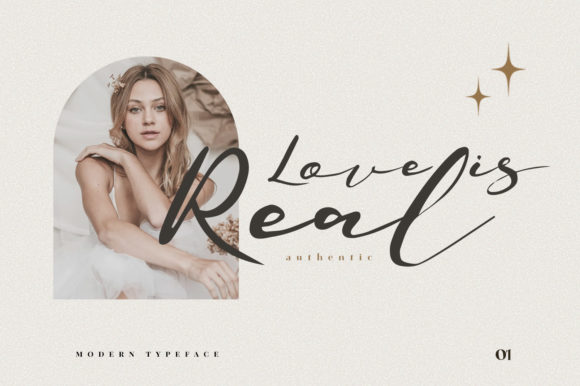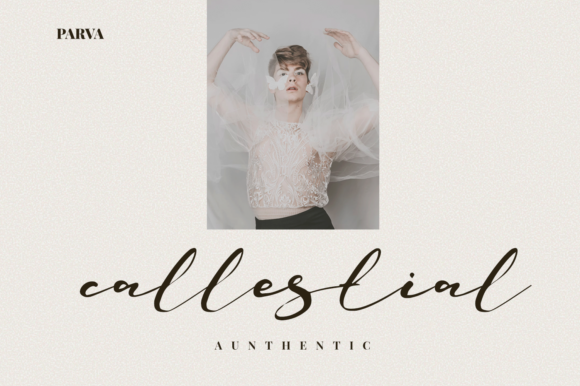
Parva Font
db-ku.com - Script & Handwritten -- Parva is modern script font, you can play with this font and create an amazing design or product with this font. Its natural and unique style makes it incredibly fitting to a large pool of your designs.